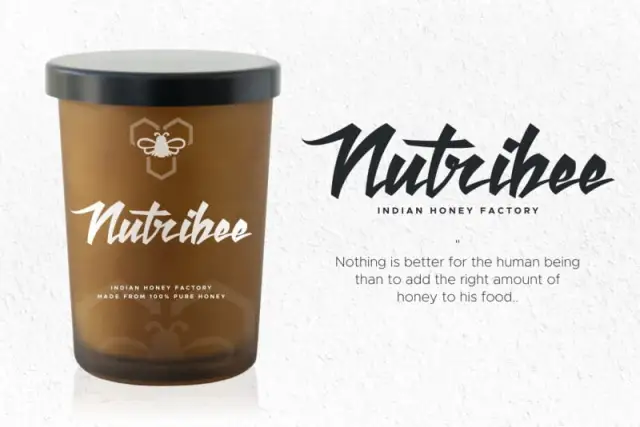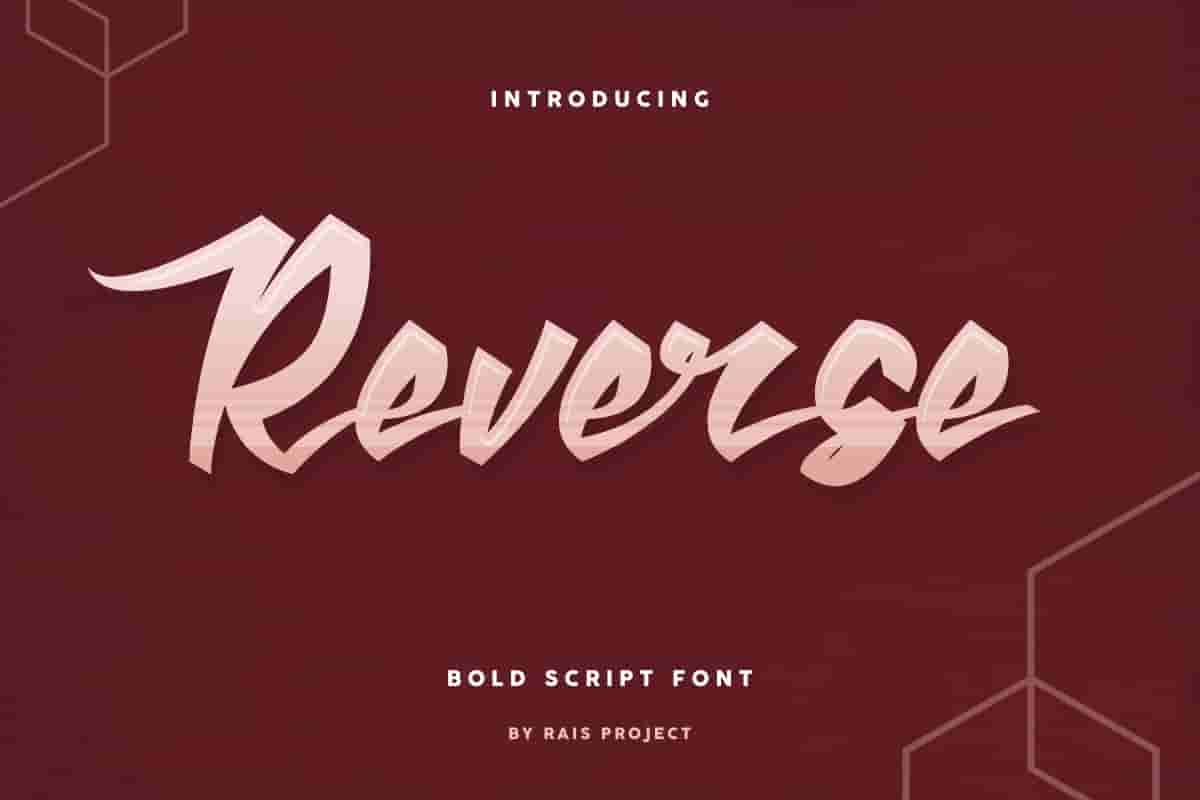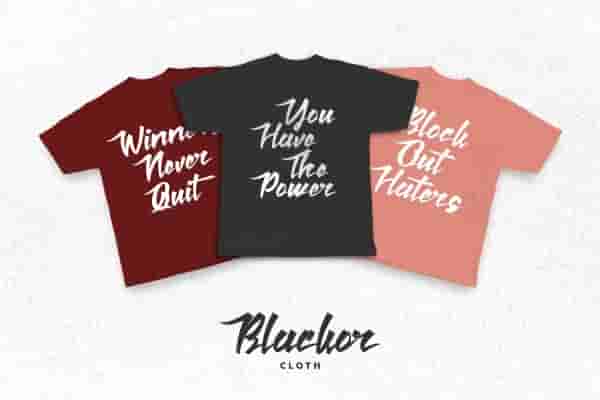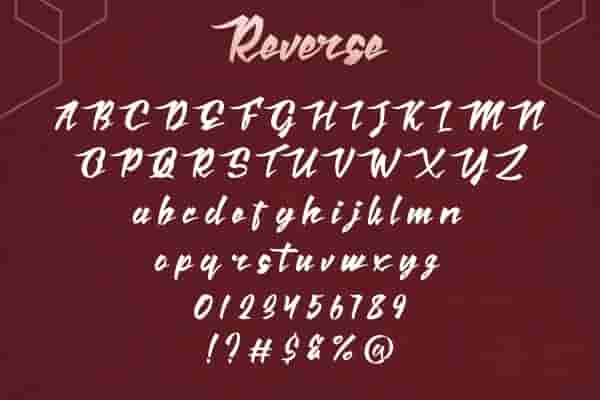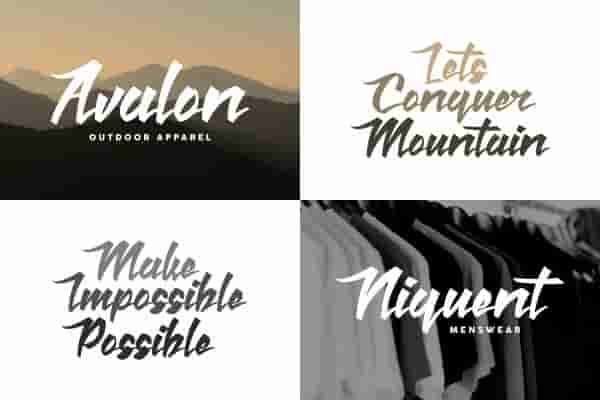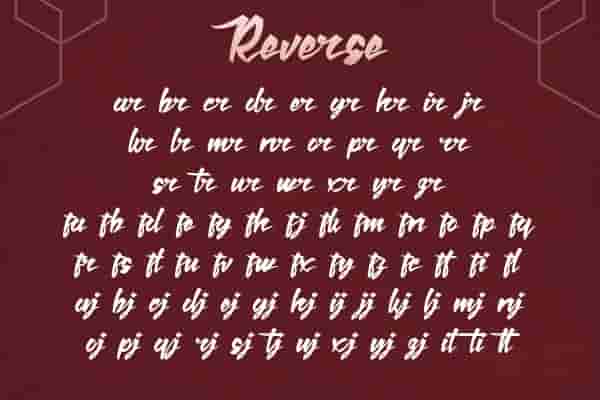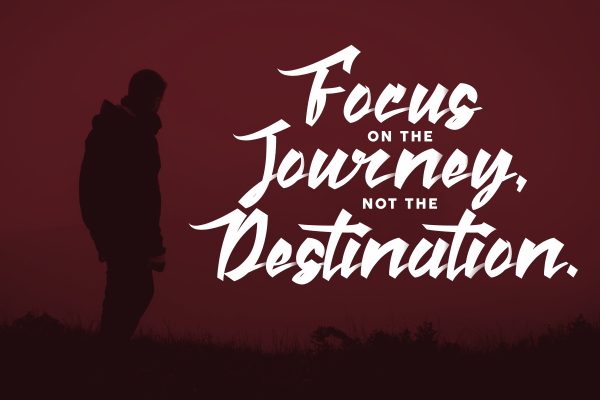
Reverse calligraphy Font
Reverse Font is a brush Calligraphic font by RaisProject. Awesome for any your special projects including : weddings, promotion, events, branding, etc
Reverse Font is our bold hand lettering font on the market. It is a script font with calligraphic handwriting style. You can see the demo font below. You can also input any word you want so you can see what it will look like :
Reverse Font made in Indonesia. The font handcrafted for any your special projects including : weddings, promotion, events, branding, advertising, magazine, shopping, signage, invitation, stationery, social media posts, product packaging, product designs, label, photography, watermark or and any projects that need calligraphy handwriting style.You will get: